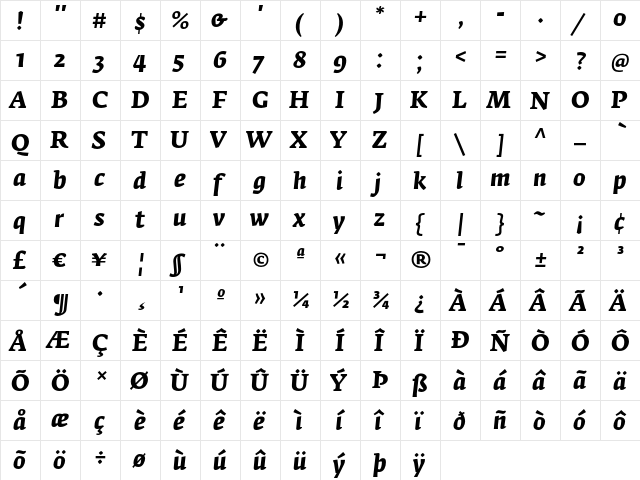
FedraSerifA BoldItalic Font Preview
FedraSerifA BoldItalic
Design Context for FedraSerifA Typeface
FedraSerifA brings classic typographic sensibility to the table — its serifs and measured letterforms reflect centuries of print heritage. The slanted form adds forward momentum and visual energy. Its bold stroke weight gives it real presence on the page.
Pro Tip: Use FedraSerifA for editorial body copy and considered headline work. Pair with a neutral sans for UI elements or captions to create a classic hierarchy.